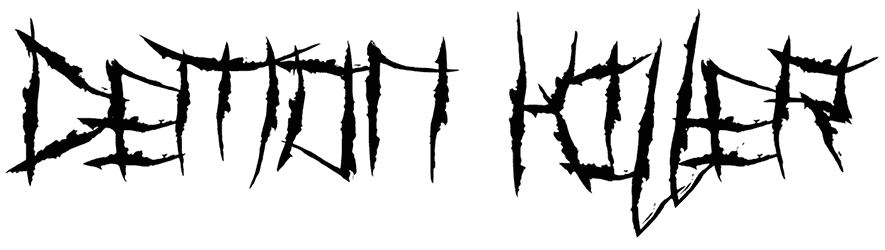
Demon Killer Font
You have a good chance to chill viewers’ blood with amiss scrubbed words. Demon Killer as a horror font can cause a chilling vibe in a poster or any other design, such as a foreground or game screen. This evil font will make your design mind-blowing and doesn’t need lowercase, numbers, or punctuation to do it.